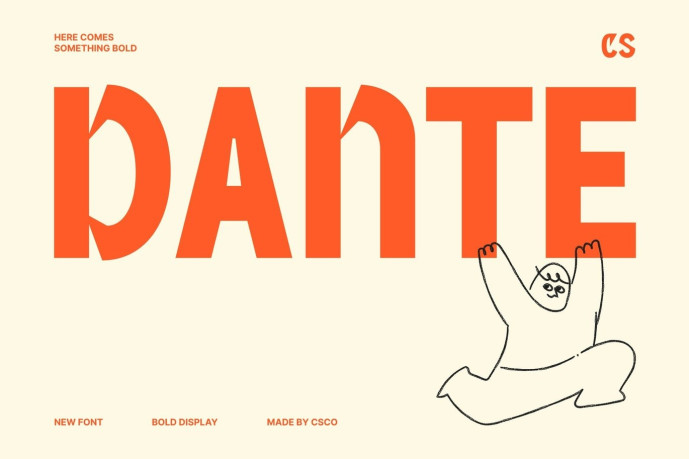
Dante – Bold Sans Serif Font
CS Dante – Bold Display Sans Serif: Where Modern Precision Meets Playful Impact Modern Letterforms with Sharp, Confident Style This is a bold display sans serif font designed to make an immediate impression. Featuring modern letterforms with sharp edges, crisp details, and balanced proportions, it delivers a clean yet commanding visual presence. Every character is crafted to maximize impact, making the font an excellent choice for bold display typography that demands attention.
Playful Personality with Strong Visual Appeal This font brings a playful personality that adds energy and uniqueness to every design. Its expressive forms create typography that feels lively, approachable, and memorable, striking the perfect balance between professional precision and creative flair. This distinctive character allows it to stand out while remaining highly versatile.
Bold Simplicity for Contemporary Design This font creates a visual identity that is both powerful and engaging. Its bold weight ensures excellent visibility, while its refined details maintain a polished and contemporary appearance. The result is typography that feels fresh, dynamic, and effortlessly impactful.
Perfect for Logos, Headlines, and Poster Art Perfect for headlines, poster art, logos, packaging, editorial layouts, advertising campaigns, merchandise, social media graphics, and other creative projects that require bold and expressive typography. Its striking letterforms and playful personality make it ideal for designs that seek to communicate confidence, creativity, and modern visual impact.
Features :
Uppercase and lowercase characters